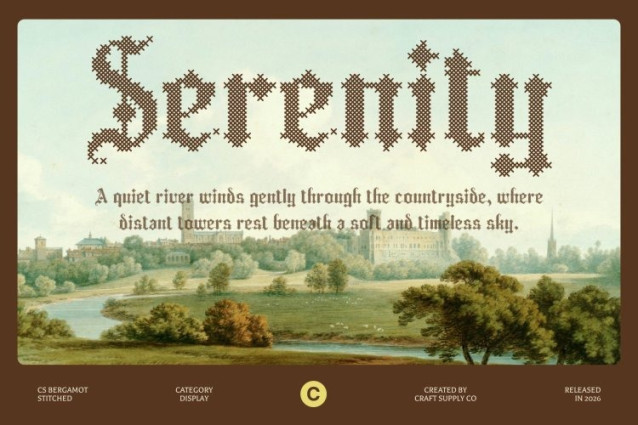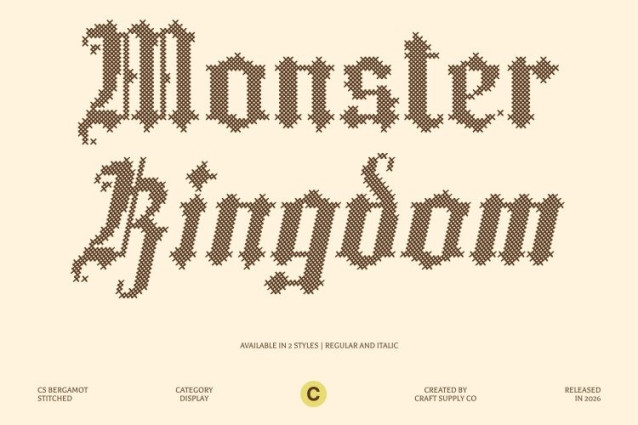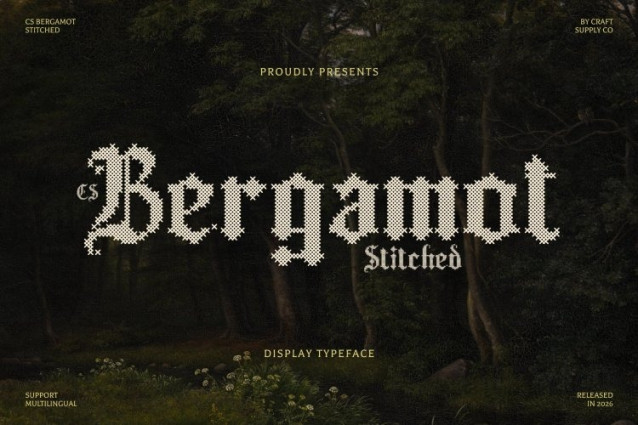
CS Bergamot Stitched Font
CS Bergamot Stitched Font – This is a striking blackletter display font inspired by the ornate craftsmanship of medieval European manuscripts. Its bold, decorative letterforms feature sharp angles, thick vertical strokes, and elaborate stylistic details that create a dramatic historical presence.
Ornate Letterforms with Embossed Stitch Detail
The intricate blackletter structure of this font is complemented by a distinctive cross-shaped stitch pattern layered across each character. This embroidered effect produces an embossed, fabric-like texture that enhances depth and visual interest. The stitched detailing adds a classic, nostalgic, relaxed, and warm impression while maintaining the dramatic and decorative strength of the traditional blackletter style.
Classic Gothic Aesthetic with Visual Depth
Rooted in medieval calligraphy and historical design traditions, this font delivers a bold and expressive typographic presence. The ornate letterforms combined with stitched texture create a layered aesthetic that feels both historic and artisanal, allowing designs to communicate richness, drama, and authenticity.
Perfect for Bold Vintage and Contemporary Projects
This is ideal for metal concert posters, vintage beer branding, editorial titles, logos, packaging, and themed promotional materials. Its fusion of Gothic blackletter elegance and handcrafted stitched detail makes it a distinctive choice for projects seeking a strong historical voice with a unique textured visual identity.